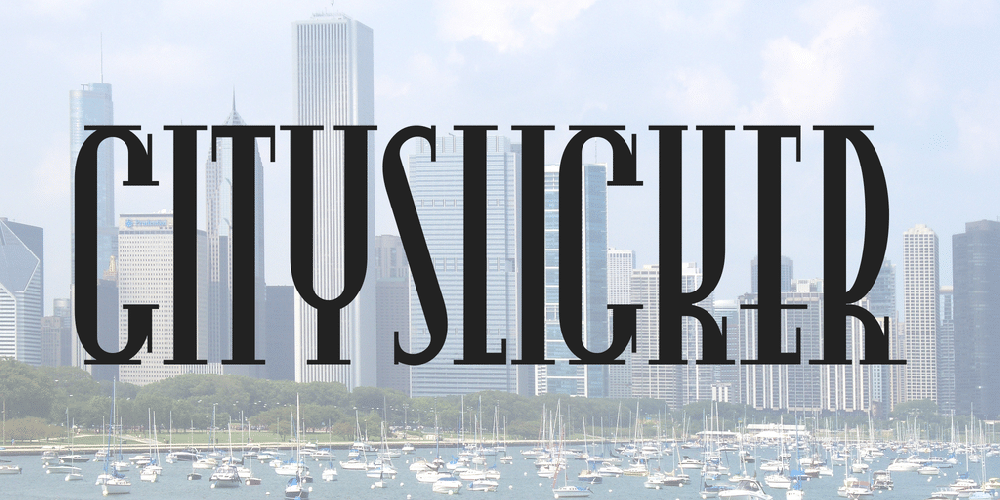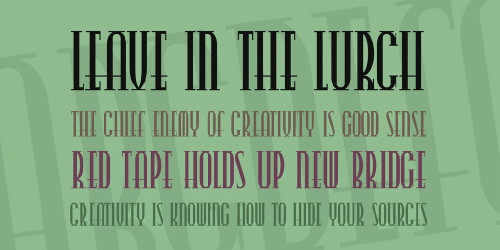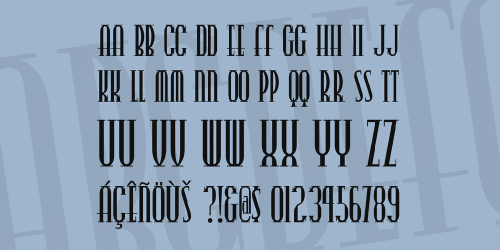
Cityslicker Font is another variation possible with Juan Trochut Blanchard’s Super Veloz Mr. Potato Head fonts (see the note for Conga Line for more info). This variation is kinda spiky, hence the name.